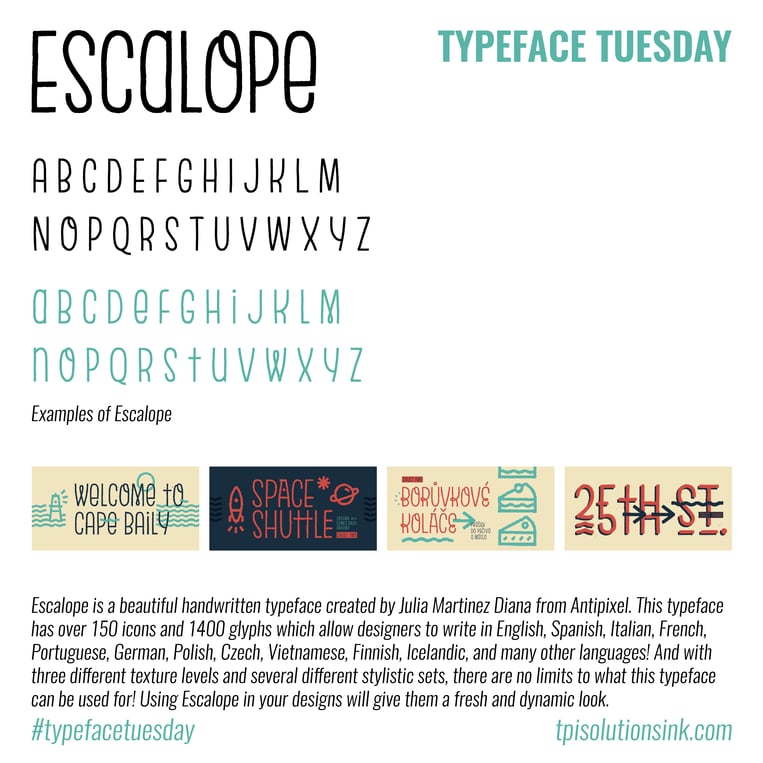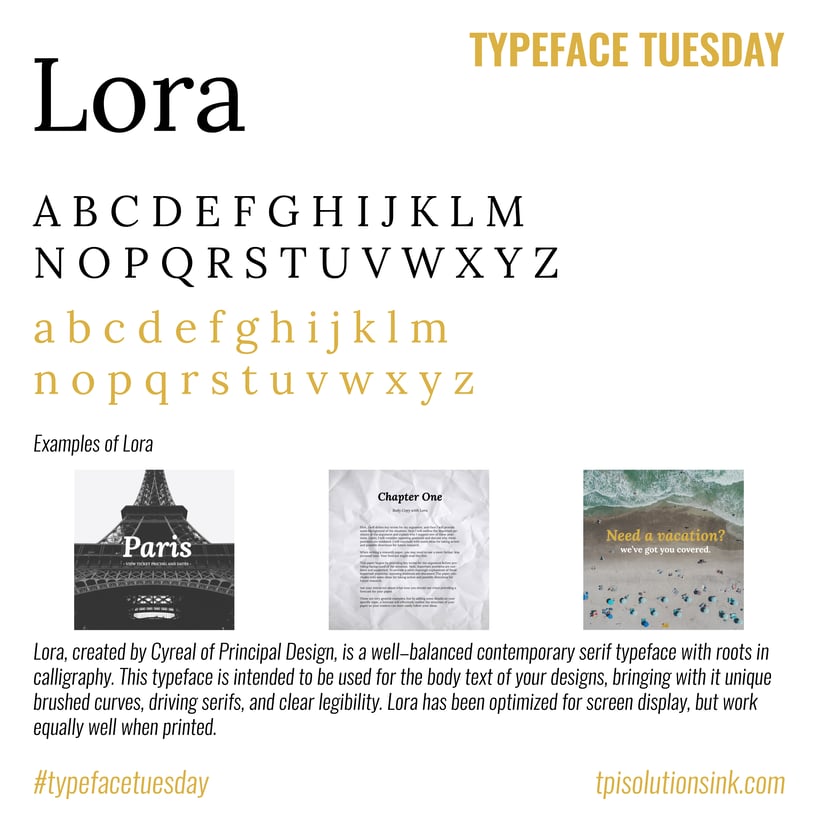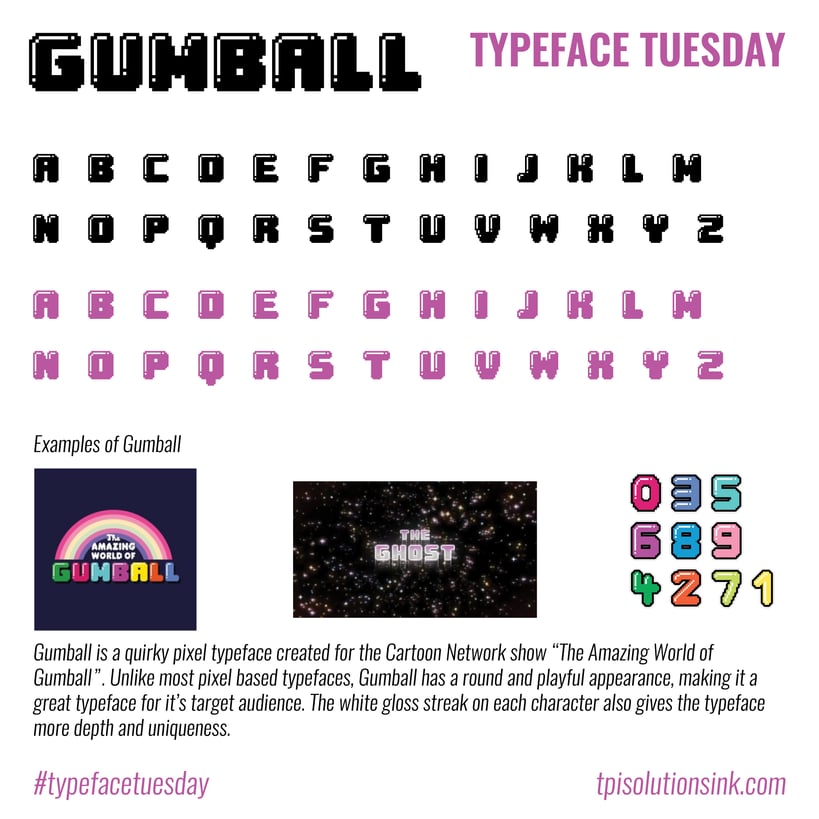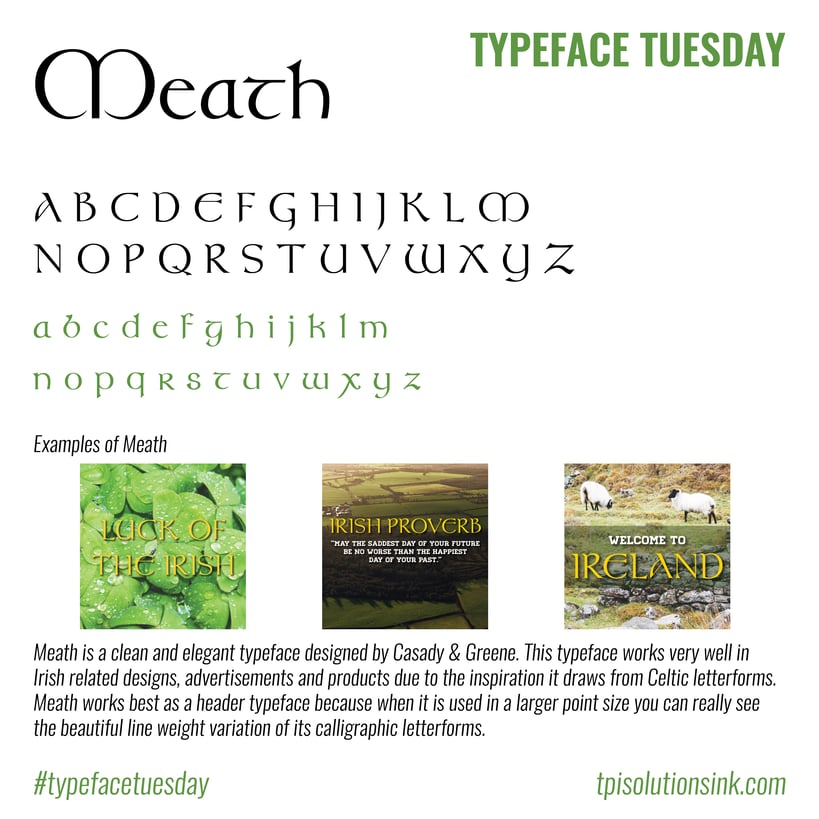
Did you miss last month's typeface Tuesdays? Well you're in luck! TPI Solutions Ink has you covered with our March recap!
Meath was our featured #typefacetuesday font for St. Patrick's Day!